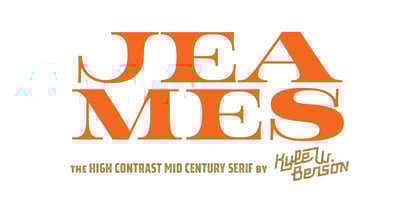
Jeames
by Kyle Wayne Benson
Jeames Font Family was designed by Kyle Benson and published by Kyle Wayne Benson. Jeames contains 3 styles family package options.
About the family
Jeames brings familiarity to the often detached feeling extended serif genre. The curved, heavy, joints let the letters bounce along while the proportions and contrast keep your eyes grounded. This mid century inspired family of three weights is intended for large titles and display. The set includes language support, opentype fractions, and other fun glyphs. You can learn more about its development here.
Designers: Kyle Benson
Publisher: Kyle Wayne Benson
Foundry: Kyle Wayne Benson
Design Owner: Kyle Wayne Benson